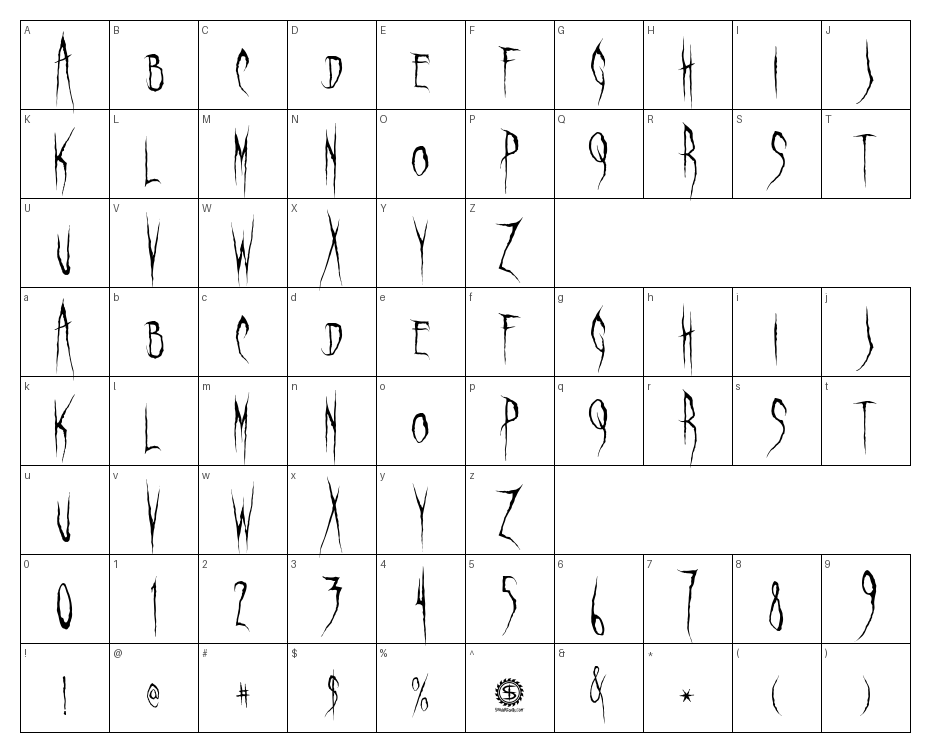
Created 2005, hand-lettered while watching the 2004 remake of "Dawn of the Dead". This font is somewhat in response to Chris Hansen's amazing font "Frank Knows".
Название шрифта: Ghastly Panic
Имя дизайнера: Sinister Fonts